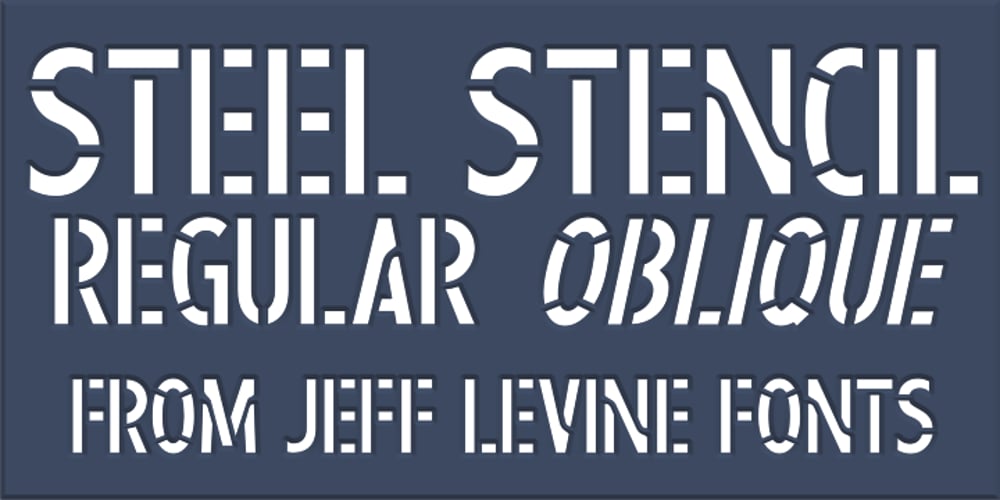
Steel Stencil JNL
Steel Stencil JNL font
Steel Stencil JNL Font Family was designed by Jeff Levine and published by Jeff Levine. Steel Stencil JNL contains 2 styles and family package options. A group of unique metal plates with stencil initials cut into them was spotted while browsing through online auctions for source material. What made these items even more interesting was how some of the stencil letters had been sectionally divided – not vertically or horizontally as in most stencils, but lines cut at angles. This is the basis for Steel Stencil JNL and Steel Stencil Oblique JNL.